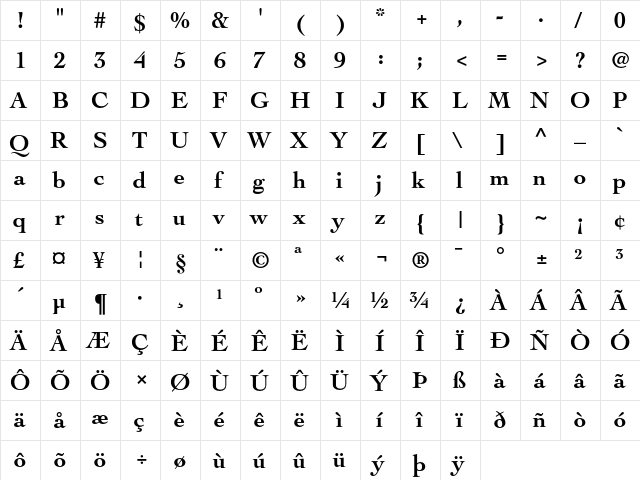
Cochin Bold
Design Context for Cochin Typeface
Cochin takes a measured approach to typography — its balanced proportions and neutral character make it a reliable workhorse for both digital and print work. Its bold stroke weight gives it real presence on the page.
Pro Tip: Pair Cochin with a font of contrasting weight or personality to build a more expressive typographic hierarchy.